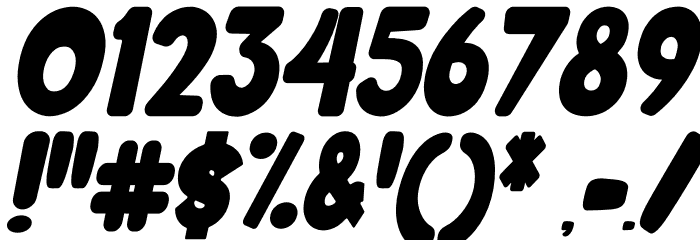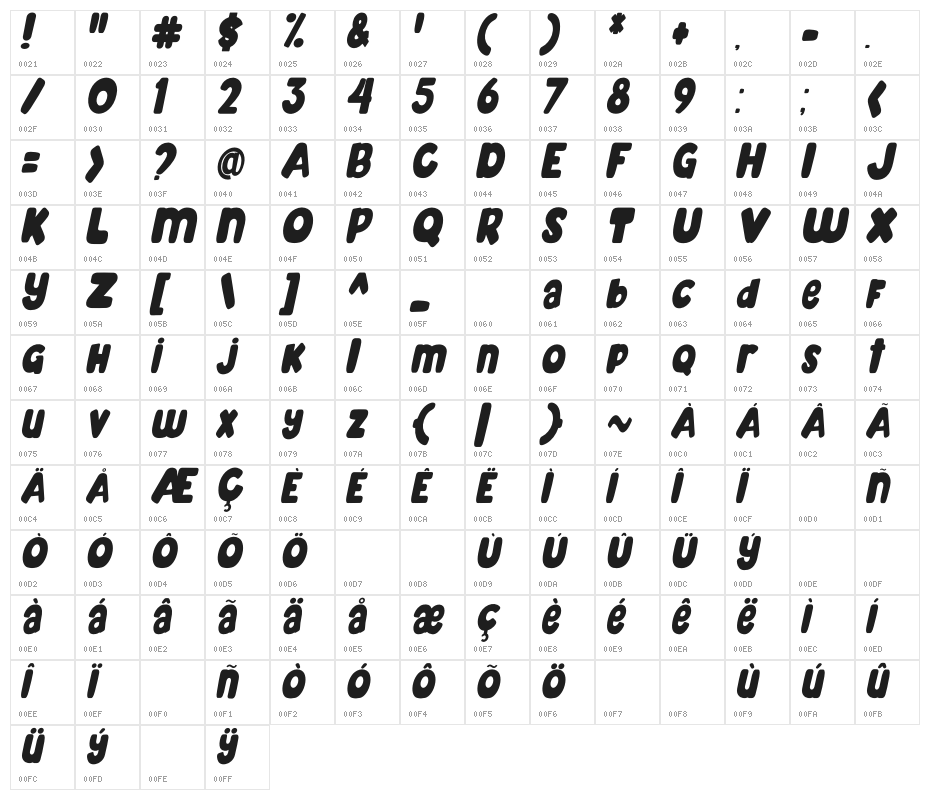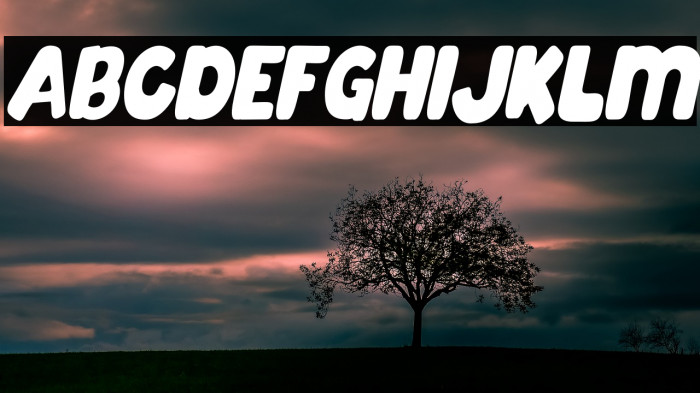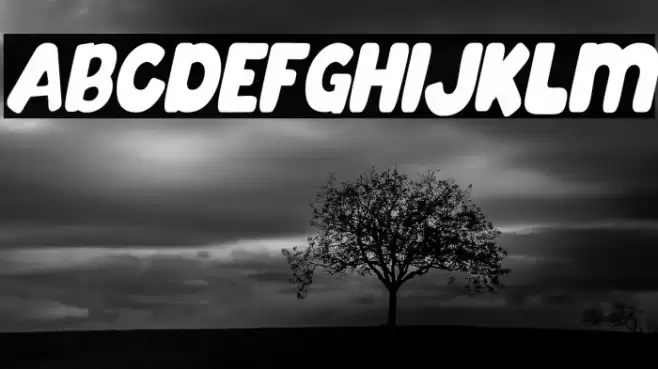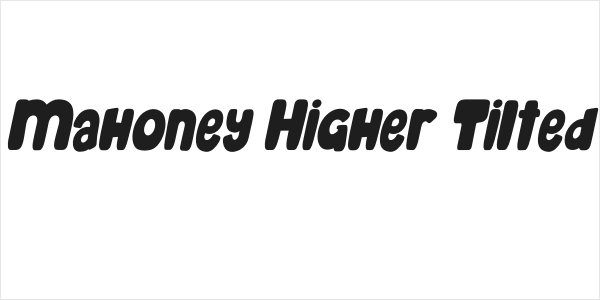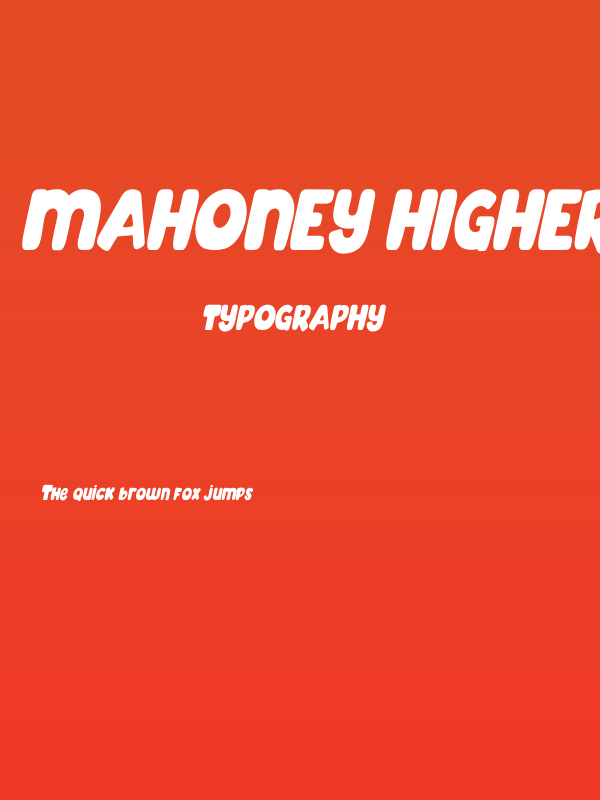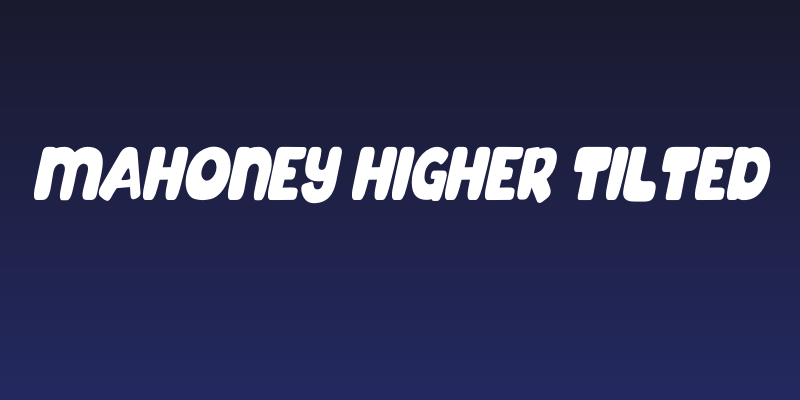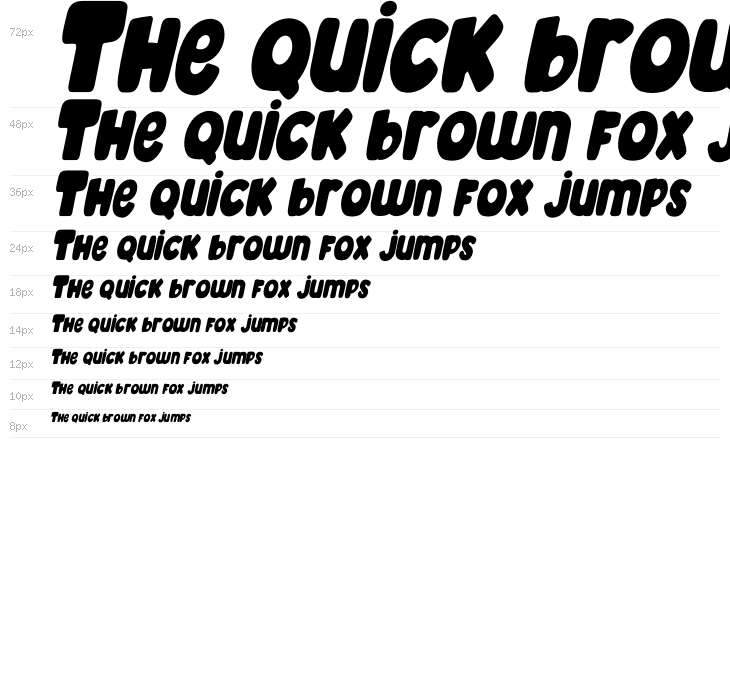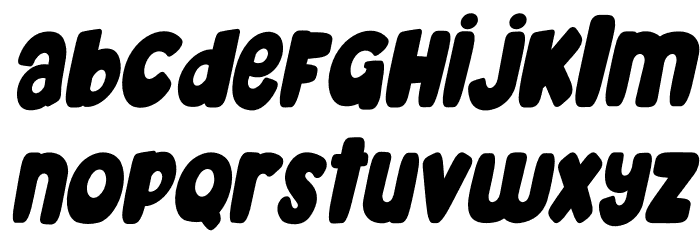
Mahoney Higher Tilted Font
Mahoney Higher Tilted Description
This font features a bold and playful style with rounded edges and a slightly tilted appearance. The characters are thick and have a consistent weight, giving them a strong presence. The uppercase and lowercase letters maintain a uniform width, creating a cohesive look. The numbers and special characters are designed to match the playful aesthetic, making them suitable for creative and informal projects. The overall design is modern and eye-catching, perfect for drawing attention.
| Proposed Projects | Ideal for children's books, playful branding, posters, and social media graphics. |